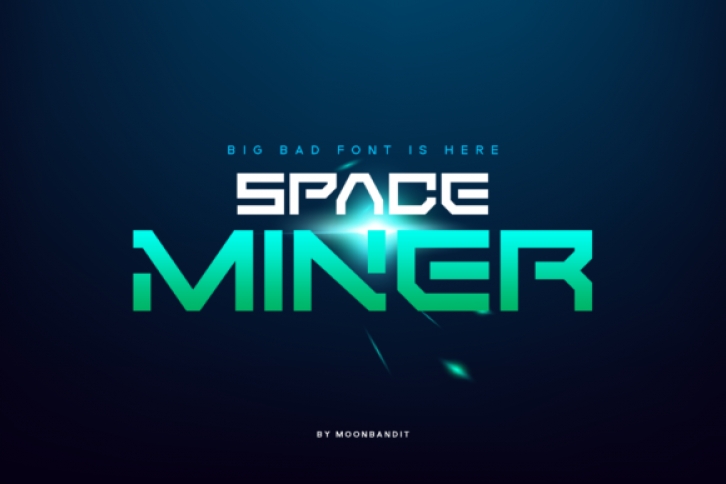
Space Miner is a futuristic display font. It celebrates abstract shapes in all their eclectic beauty. Add this font to your creative ideas and notice how it will make them stand out!